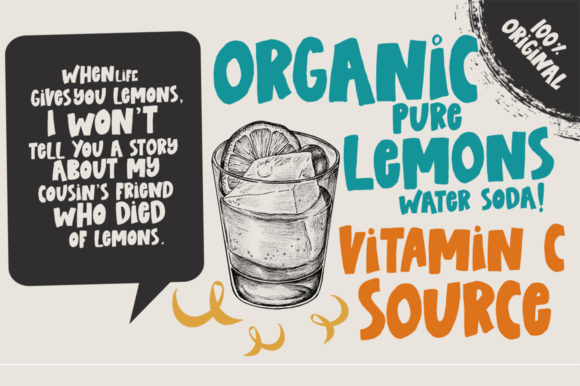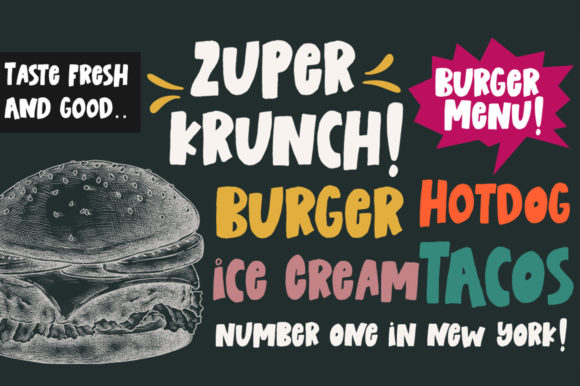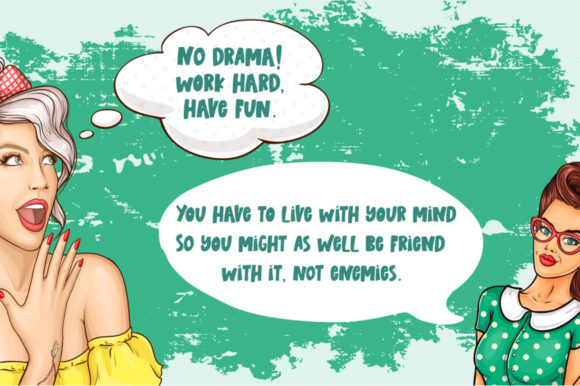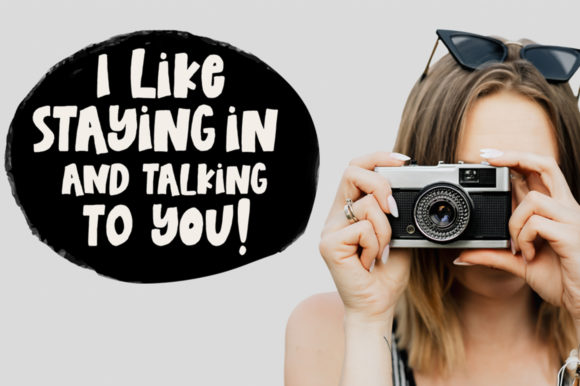
Introduction to Lovely Scream Queens Font
Lovely Scream Queens is a lovely handwritten font with an authentic feel.
Use it to turn any design project into a true standout .
Lovely Scream Queens Font offers exceptional quality and versatility, making it a valuable addition to your design toolkit. Whether you’re creating for personal projects or commercial use, Lovely Scream Queens Font delivers professional results.